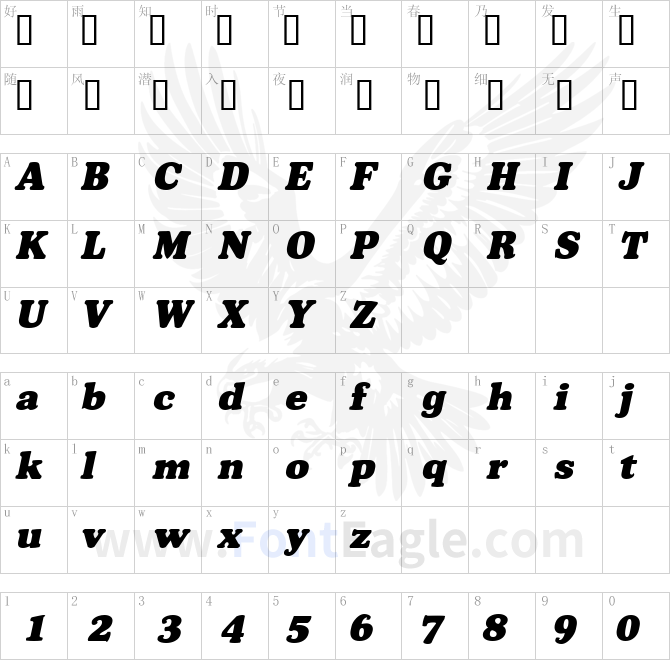
- Font name:Broadside
- Font Subfamily ID:Macromedia Fontographer 4.1 Broadside Italic
- Font Full Name:Broadside Italic
- Postscript:BroadsideItalic